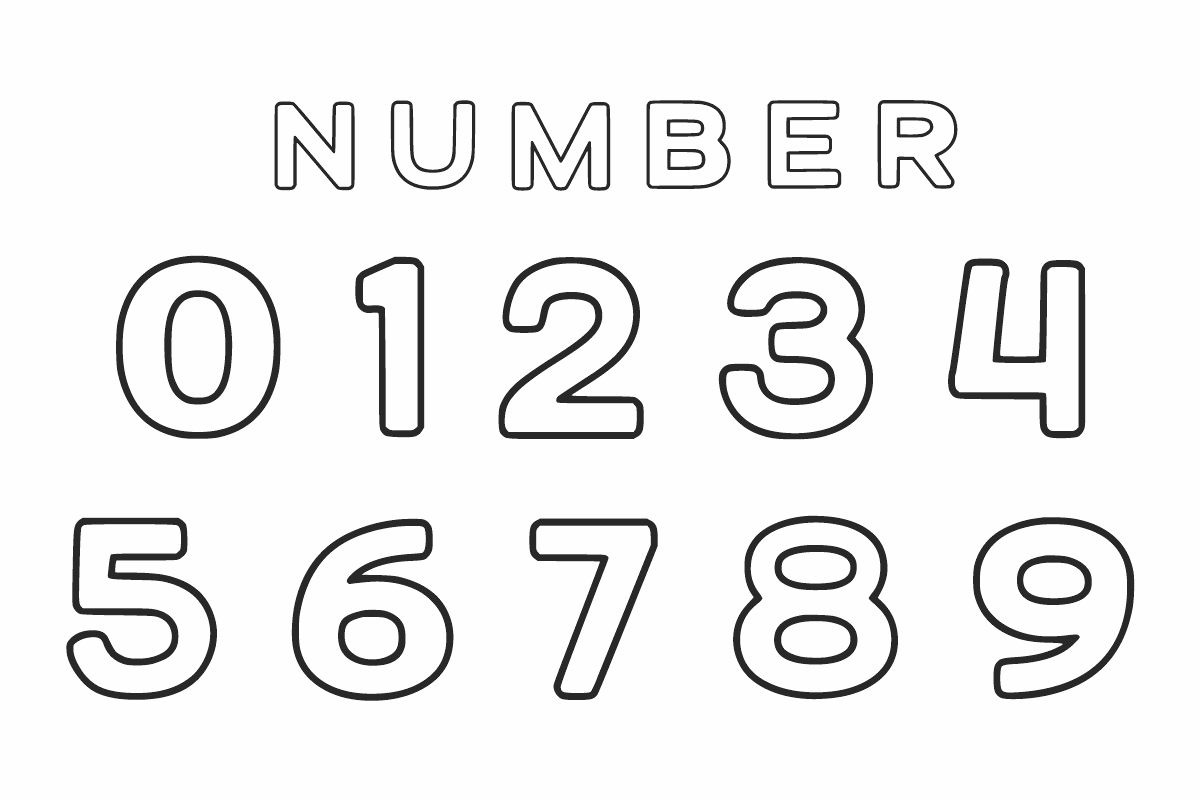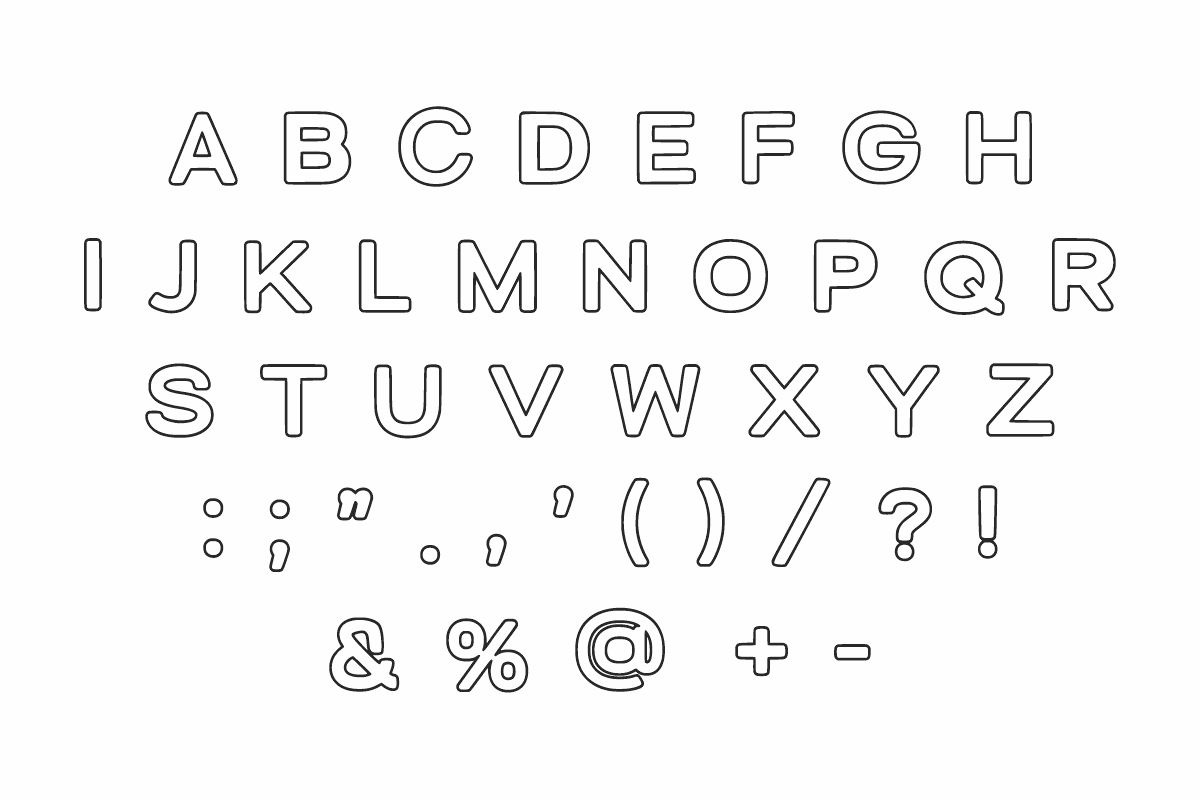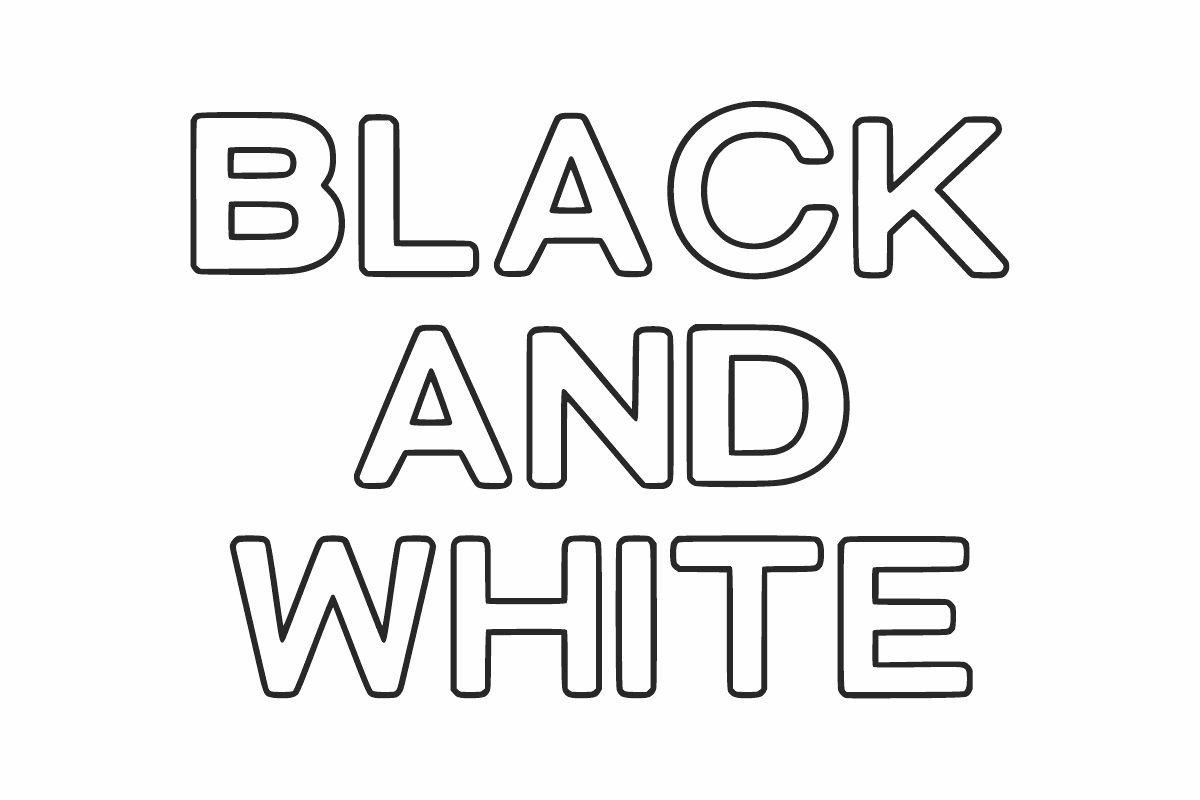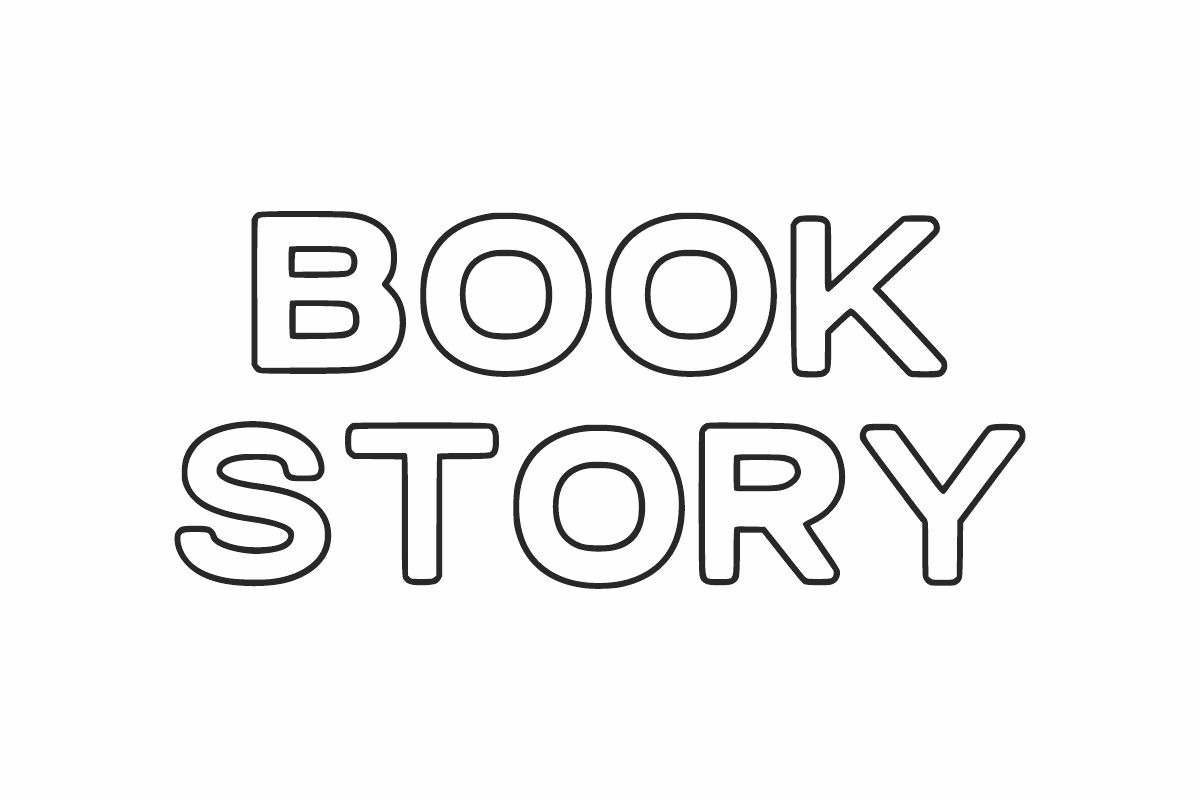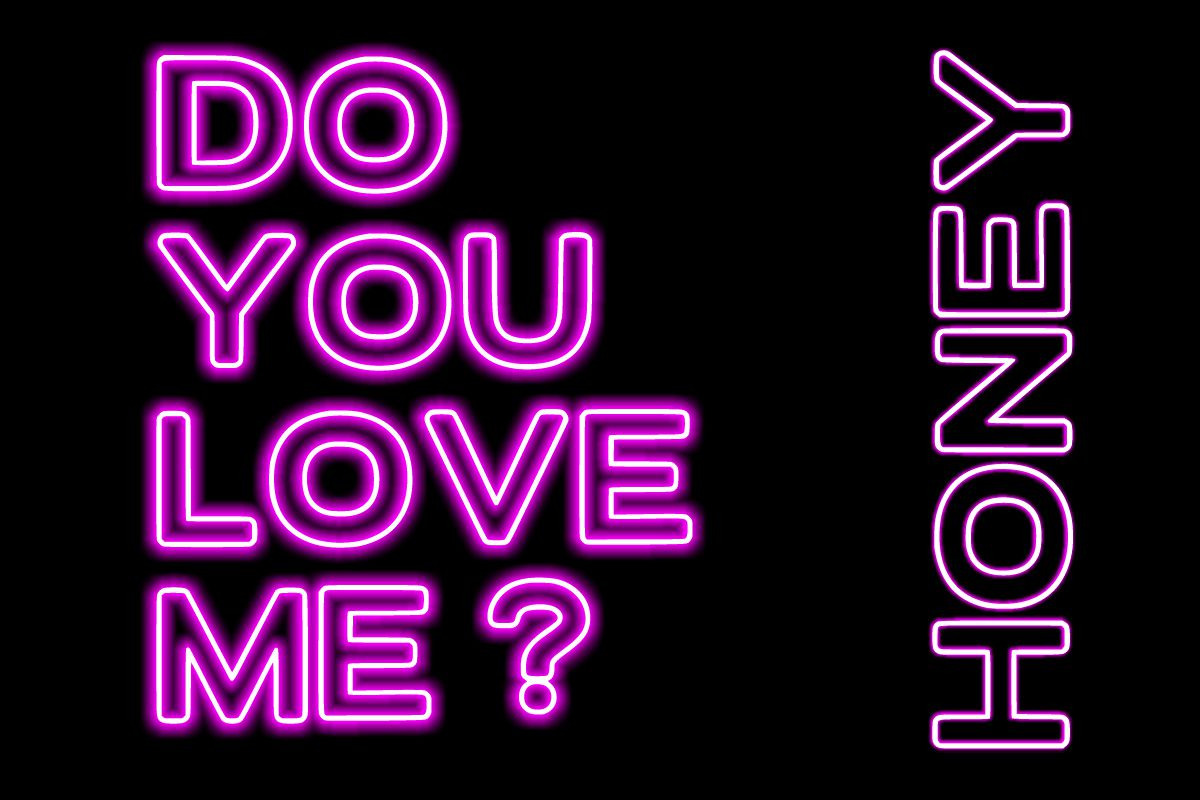
Wonder Kids
Wonder Kids is a outline display font. It is easy to read and conveys impeccable friendliness. Whether you’re using it for crafts, digital design, presentations, or making greeting cards, this font has the potential to become your favorite go-to font.